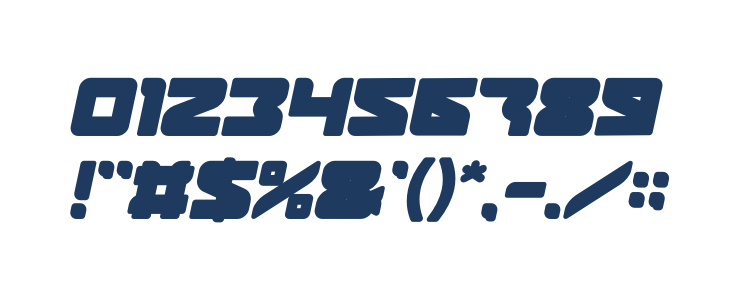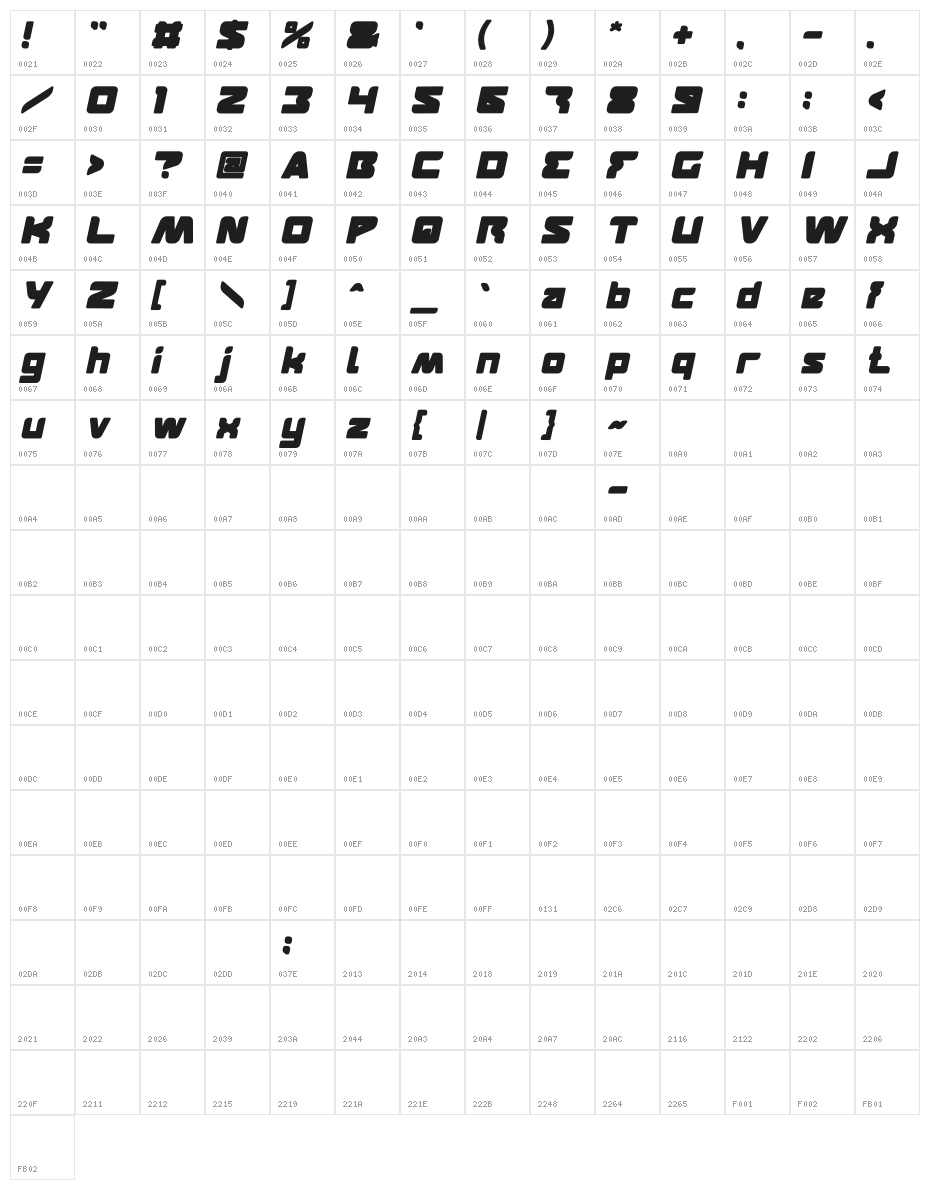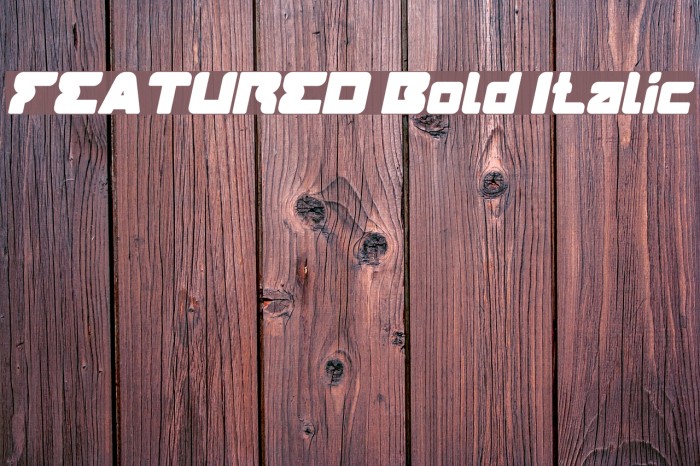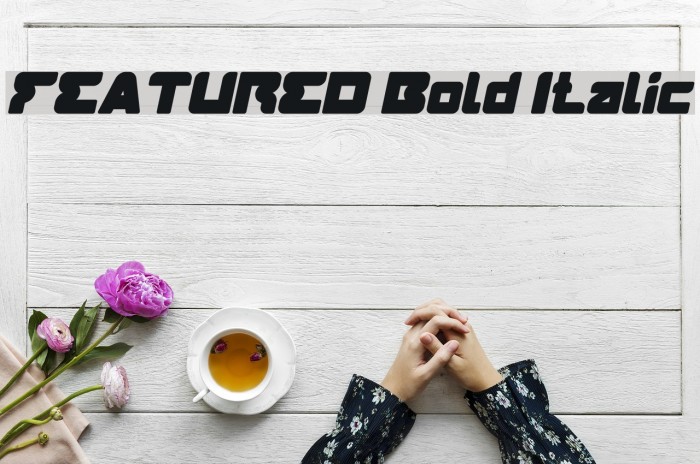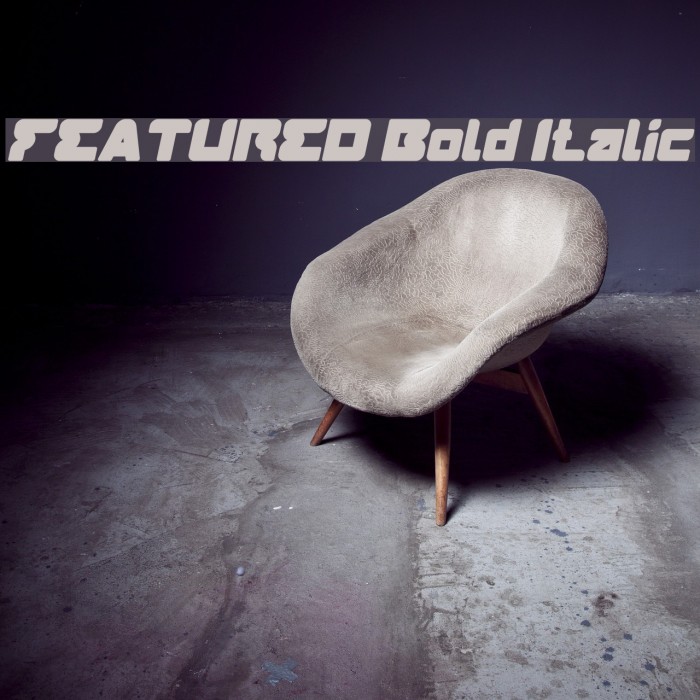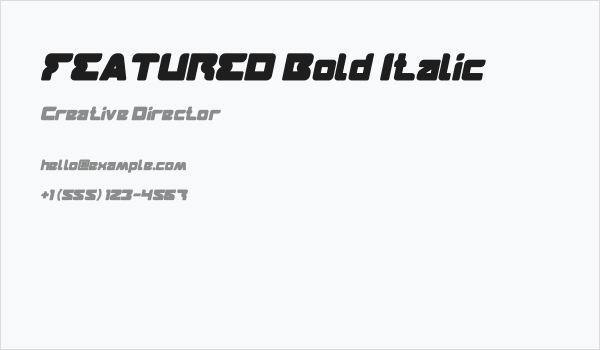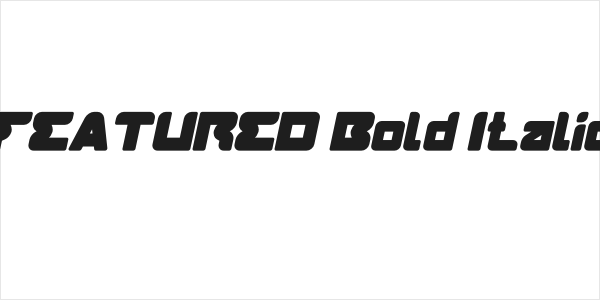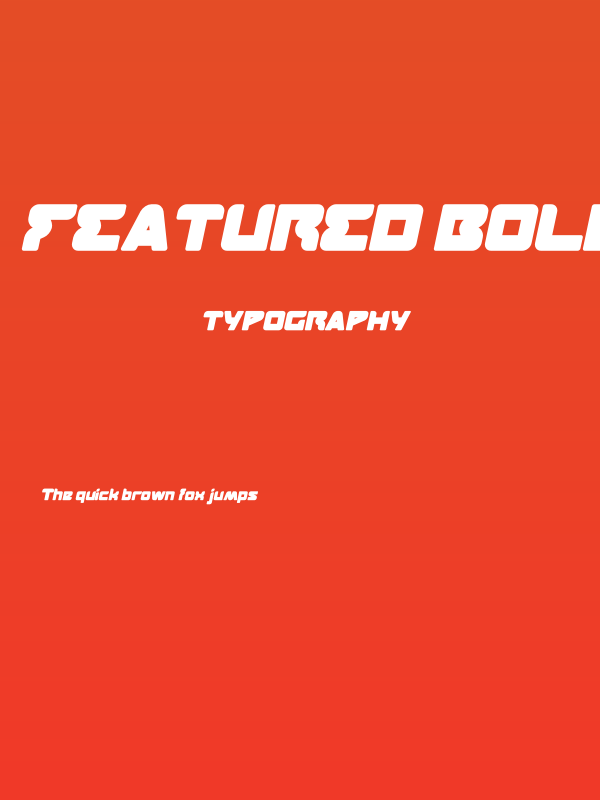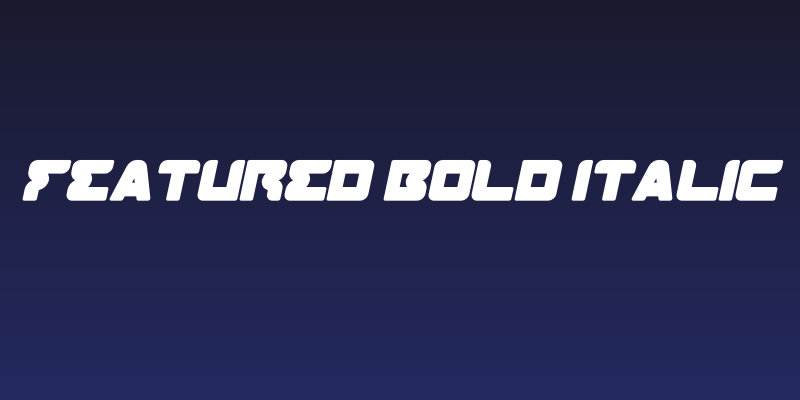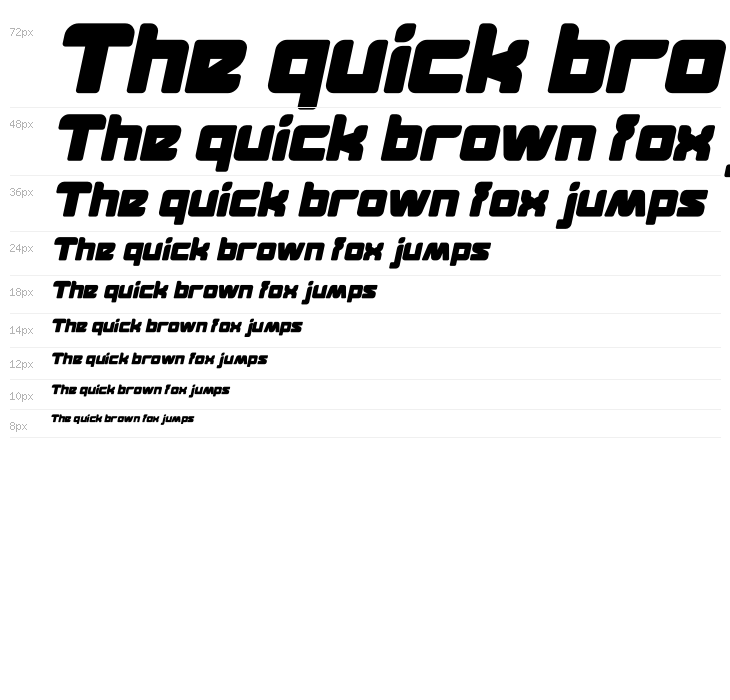
FEATURED Bold Italic Font
FEATURED Bold Italic Description
This bold and italic typeface features a modern and dynamic design, characterized by its thick, rounded strokes and slanted orientation. The letters are tightly spaced, giving a compact and cohesive appearance. The font's boldness is emphasized by its substantial weight, making it highly visible and impactful. Its unique style combines elements of both futuristic and retro aesthetics, making it versatile for various creative applications. The numbers and special characters maintain the same bold and italicized style, ensuring consistency across all text elements.
| Proposed Projects | Ideal for branding, advertising, posters, and any project requiring a strong visual impact. |